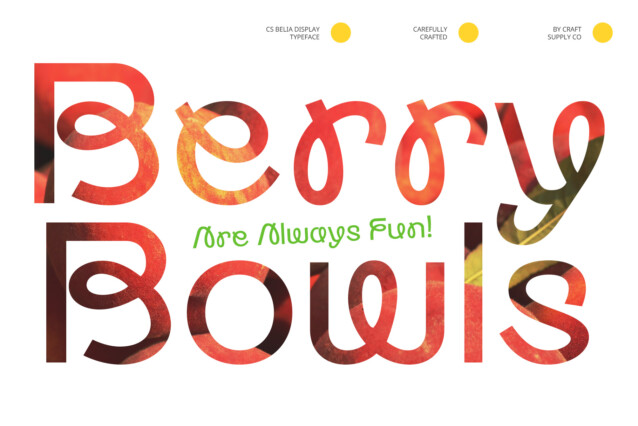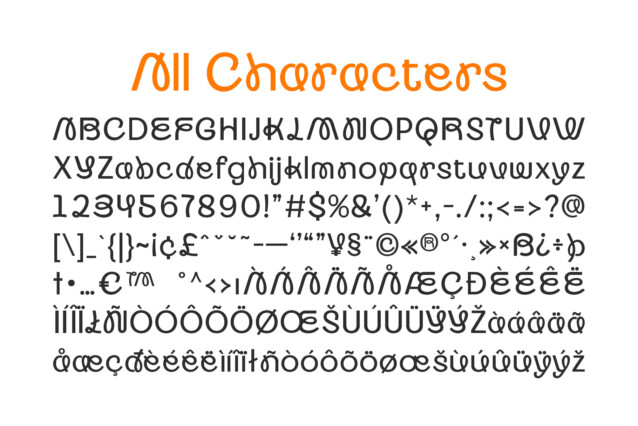
CS Belia Font
CS Belia Font is a display sans-serif font that stands out with its unique curved and swirling shapes. The font’s playful and energetic design is characterized by flowing curves and dynamic twists, creating a lively and eye-catching appearance that adds a touch of cuteness to any design.